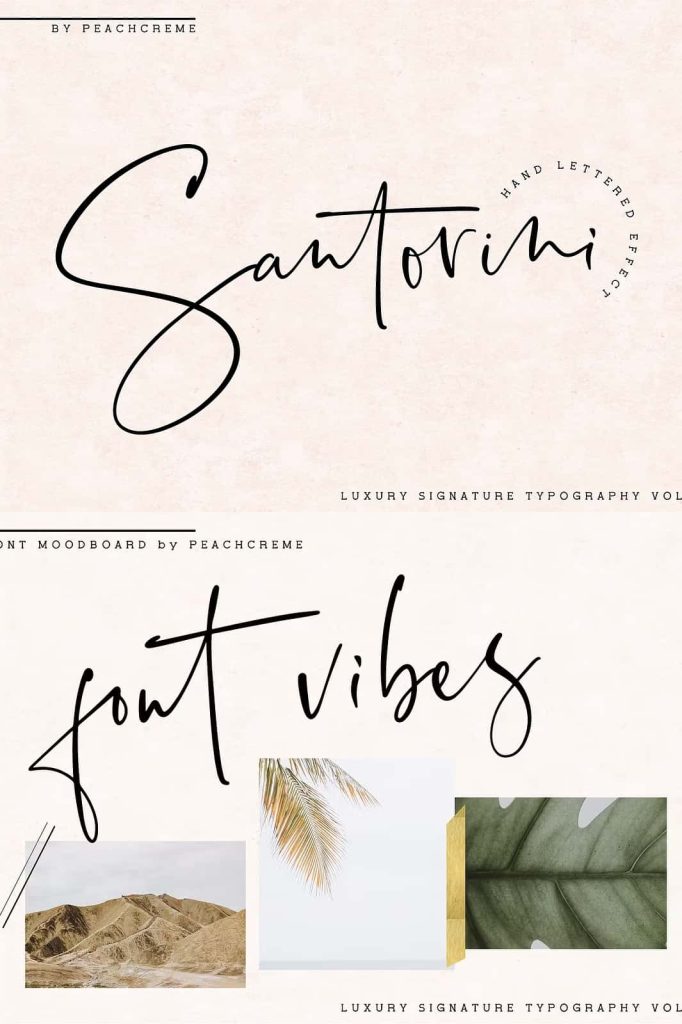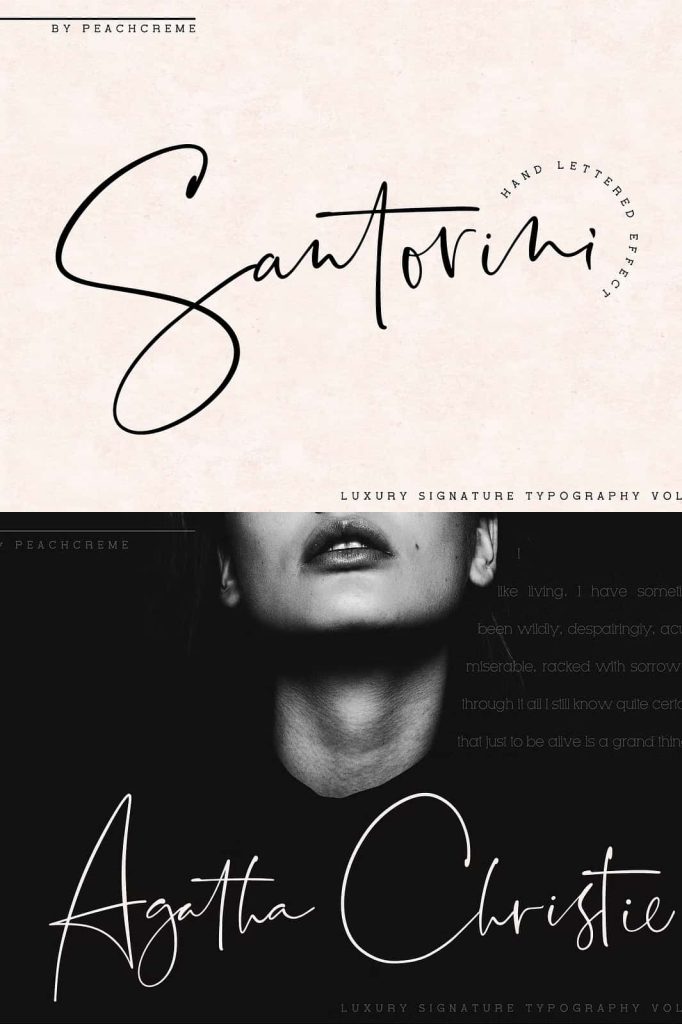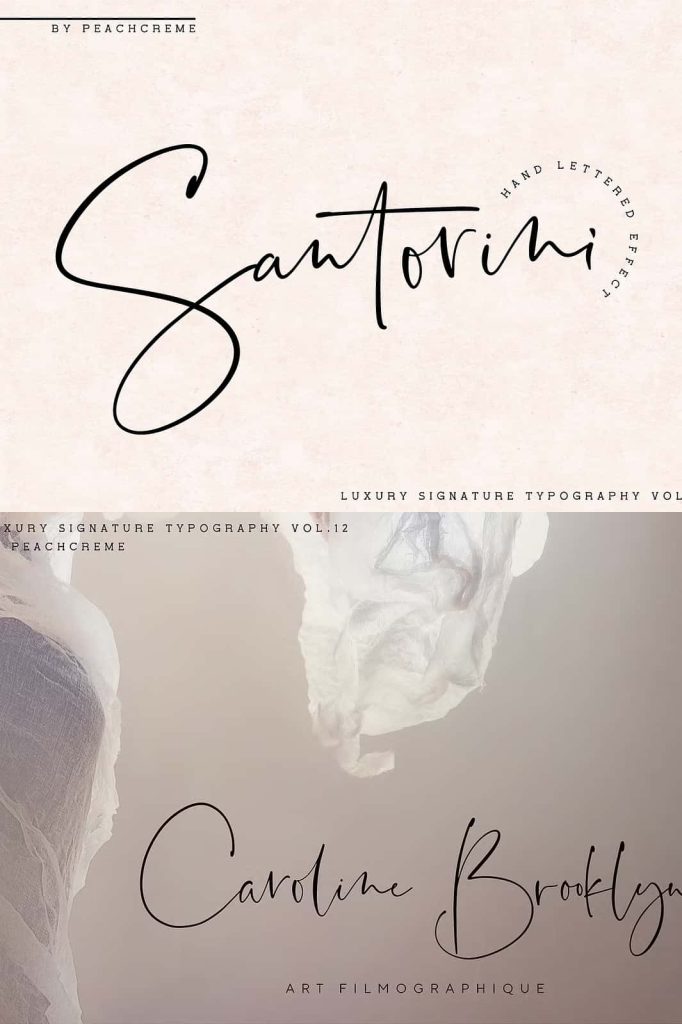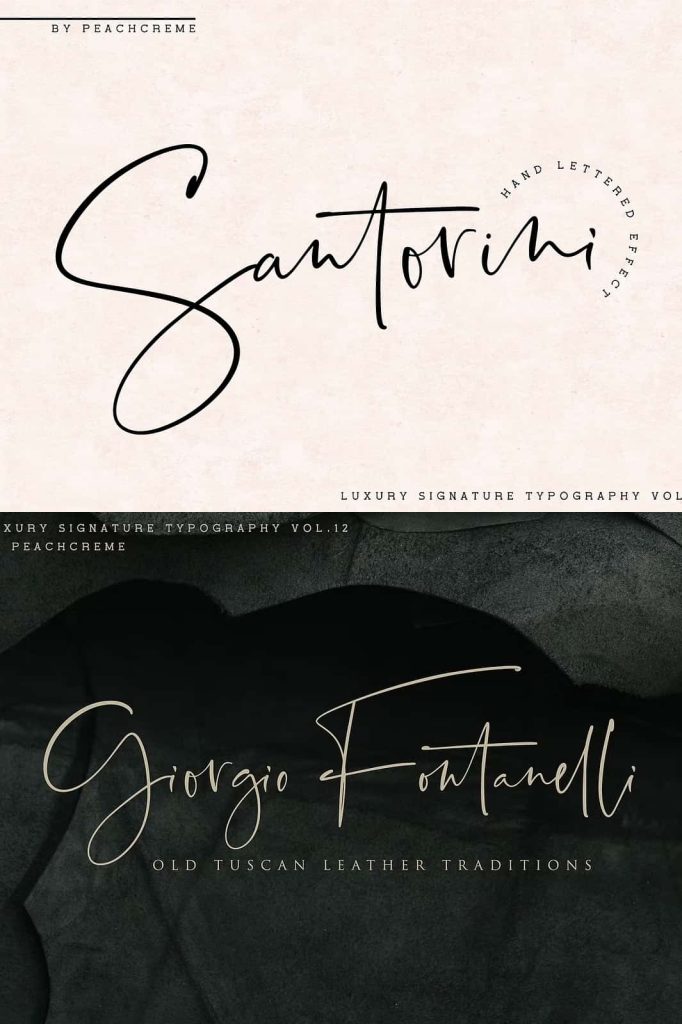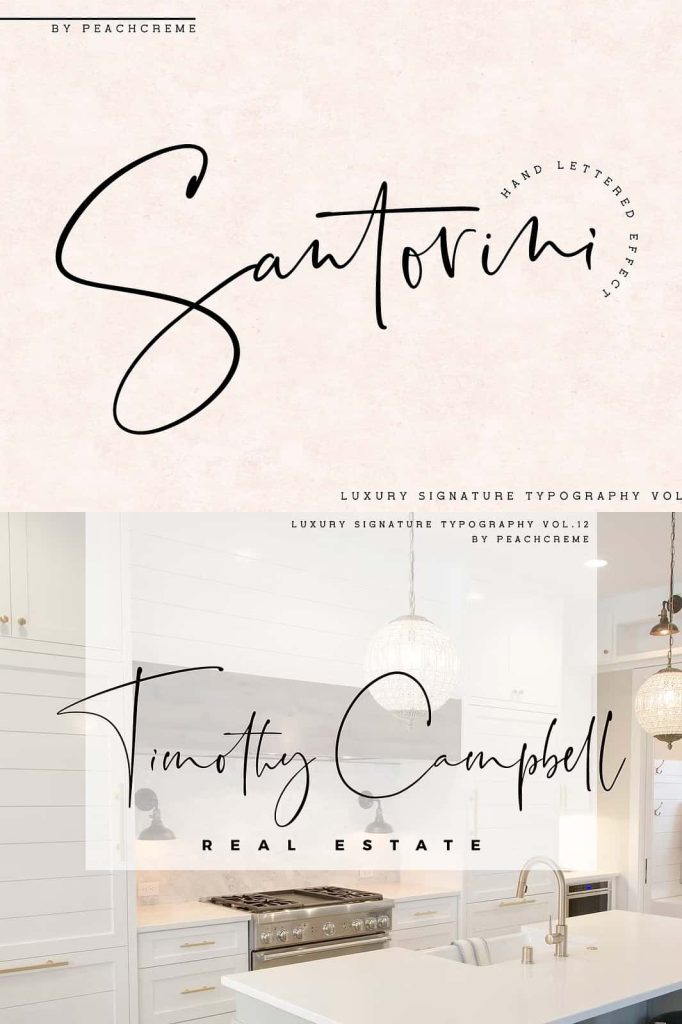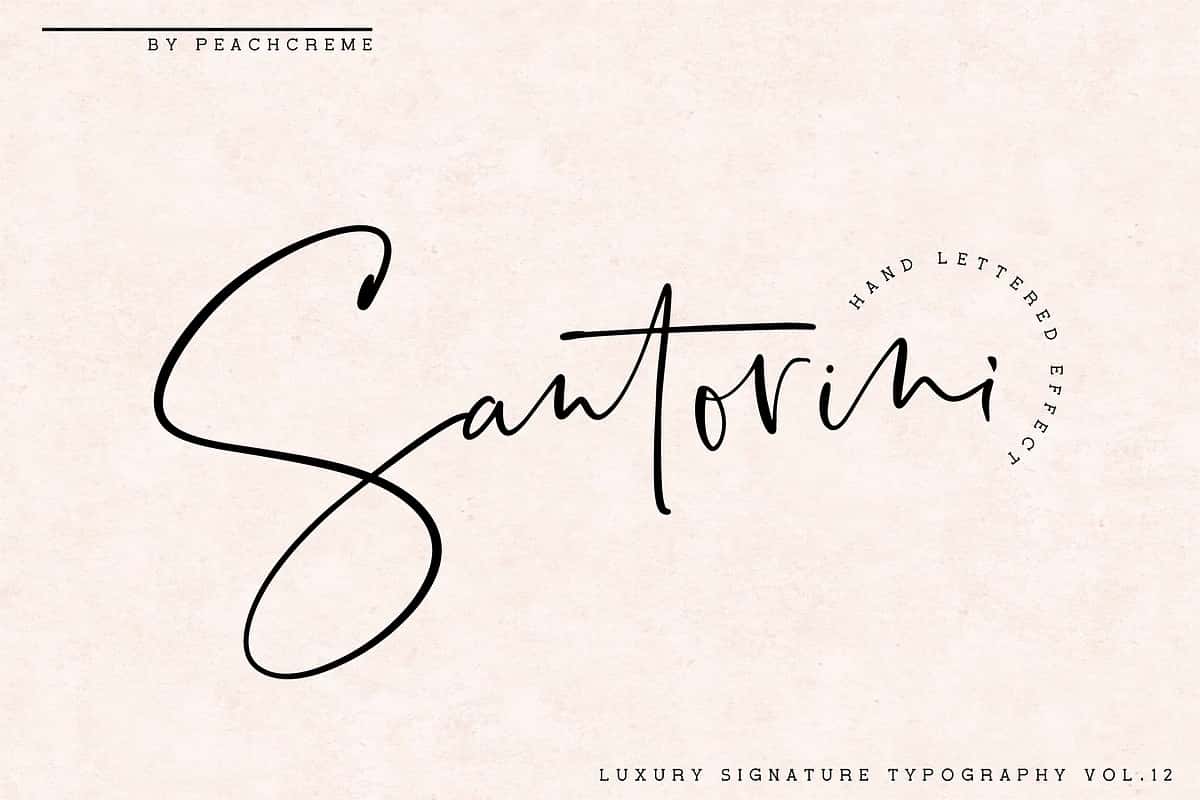
Santorini // Luxury Signature FontdezzignerApril 13, 2025Fonts I had this project in my mind long time ago. As a graphic designer, who worked/works a lot on creating branding Download